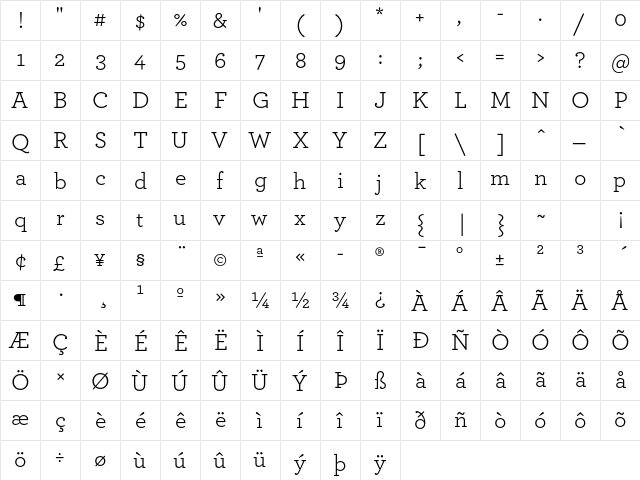
ArcherPro Book
Design Context for ArcherPro Typeface
ArcherPro takes a measured approach to typography — its balanced proportions and neutral character make it a reliable workhorse for both digital and print work.